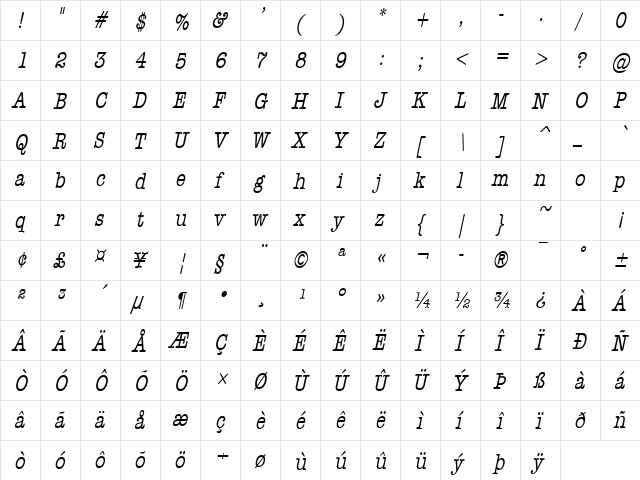
Headline Thin Italic
Design Context for Headline Thin Typeface
Headline Thin offers clean, dependable letterforms without strong stylistic allegiance, making it a practical choice for designers who need flexibility. The dynamic lean of this cut emphasises speed and emphasis in any layout. Its slender proportions lend an understated elegance to any composition.